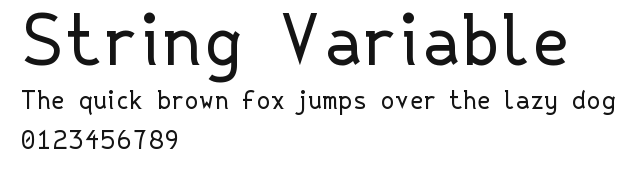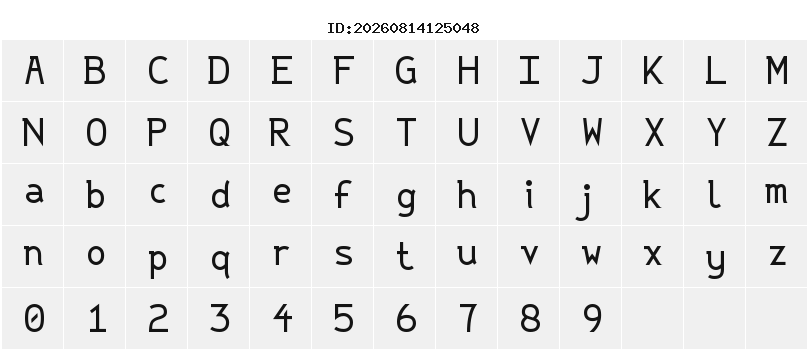
• Font Name: String Variable
• Font ID: String Variable Medium
• Full Font Name: String Variable Medium
• Version: Version 0.60
• PostScript Name: StringVariable
• Character Count: 400
About String Variable.ttf
String Variable.ttf is a modern, elegant sans-serif font designed for ultimate readability and visual harmony. Perfect for branding, headlines, web design, and print materials.